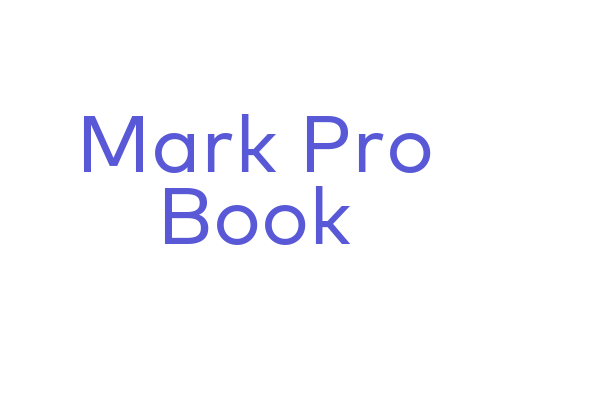
Mark Pro Book is a clean and modern sans-serif font from the Mark Pro font family. Designed by Hannes von Doehren, Christoph Koeberlin, and FontFont Type Department, this font is perfect for a wide range of basic design projects. With its sleek and simple style, Mark Pro Book is ideal for creating professional and easy-to-read text in various contexts.
Font Name: Mark Pro Book
Designer: Hannes von Doehren, Christoph Koeberlin, FontFont Type Department
Font Family: Mark Pro Book